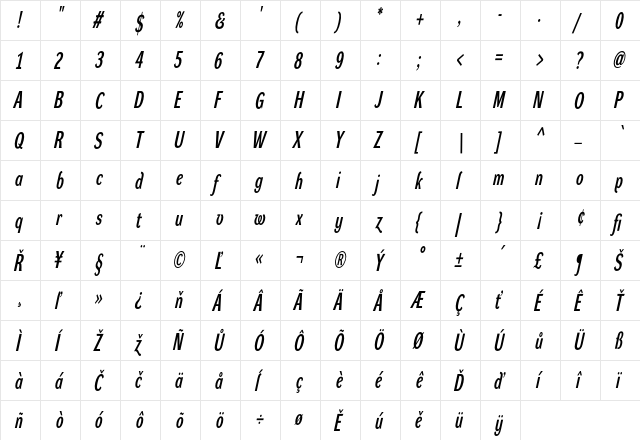
Dynamo DXC Regular
Design Context for Dynamo DXC Typeface
Dynamo DXC is a composed and adaptable typeface that performs quietly and consistently across a wide range of design contexts.